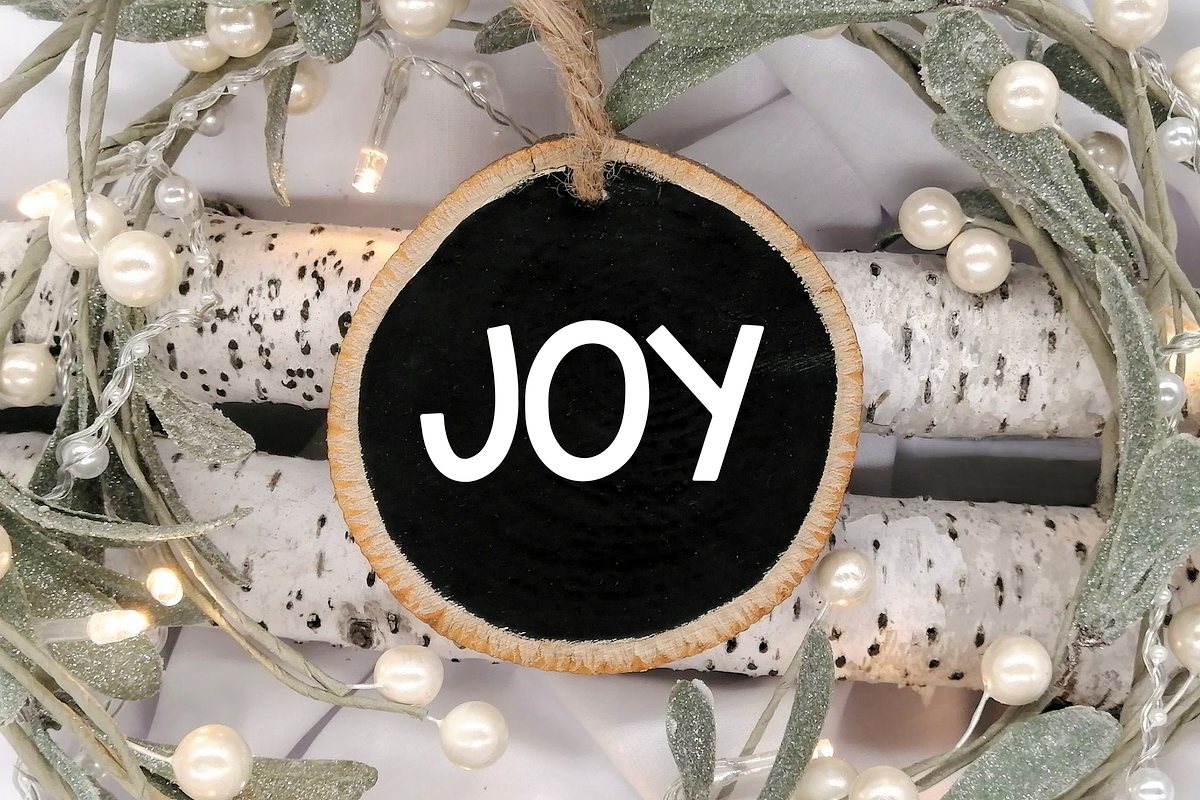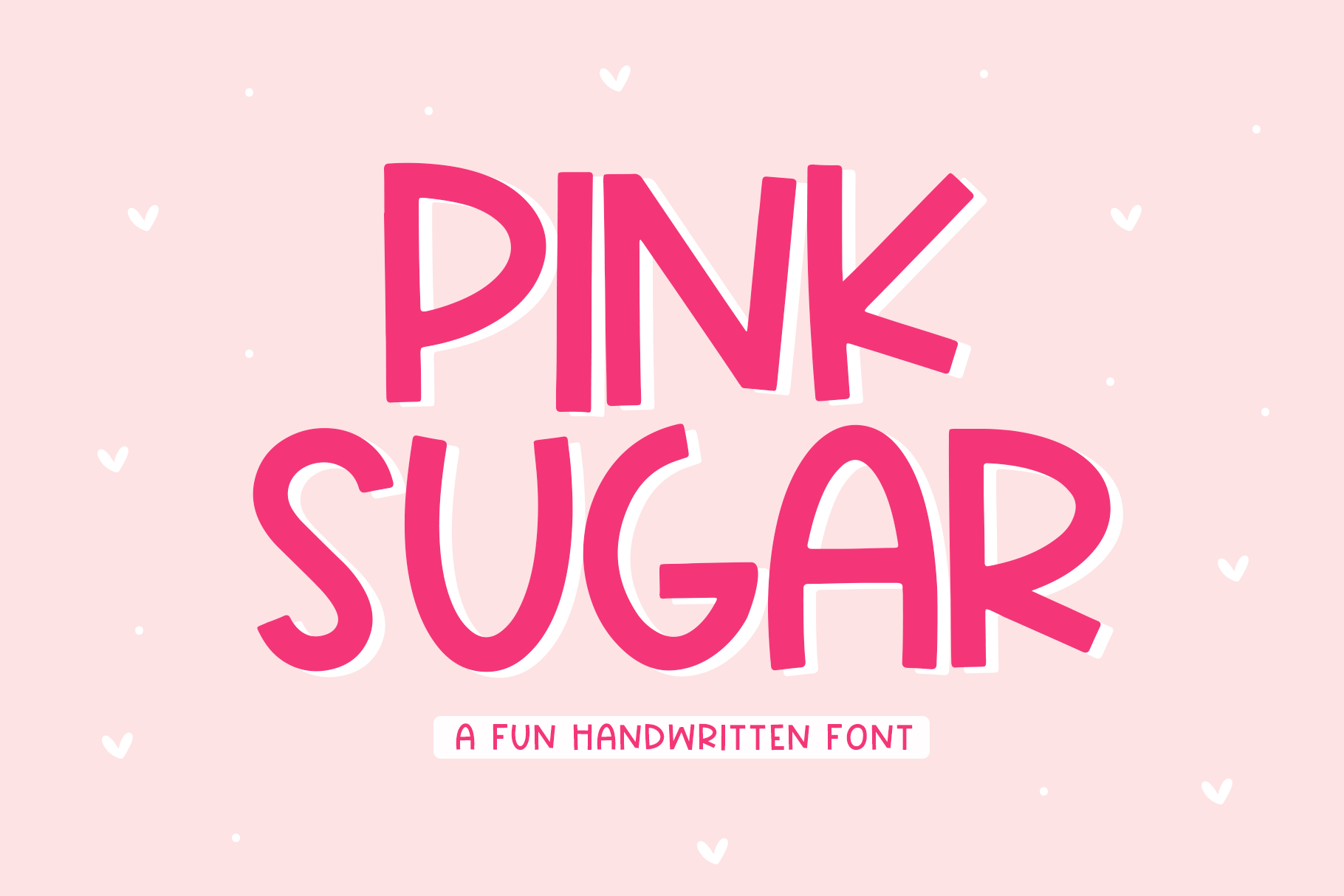
Pink Sugar | Fun Handwritten Font
Pink Sugar is a fun handwritten font.
This font is perfect for svg designs, branding, logos, shirts, social media and more!